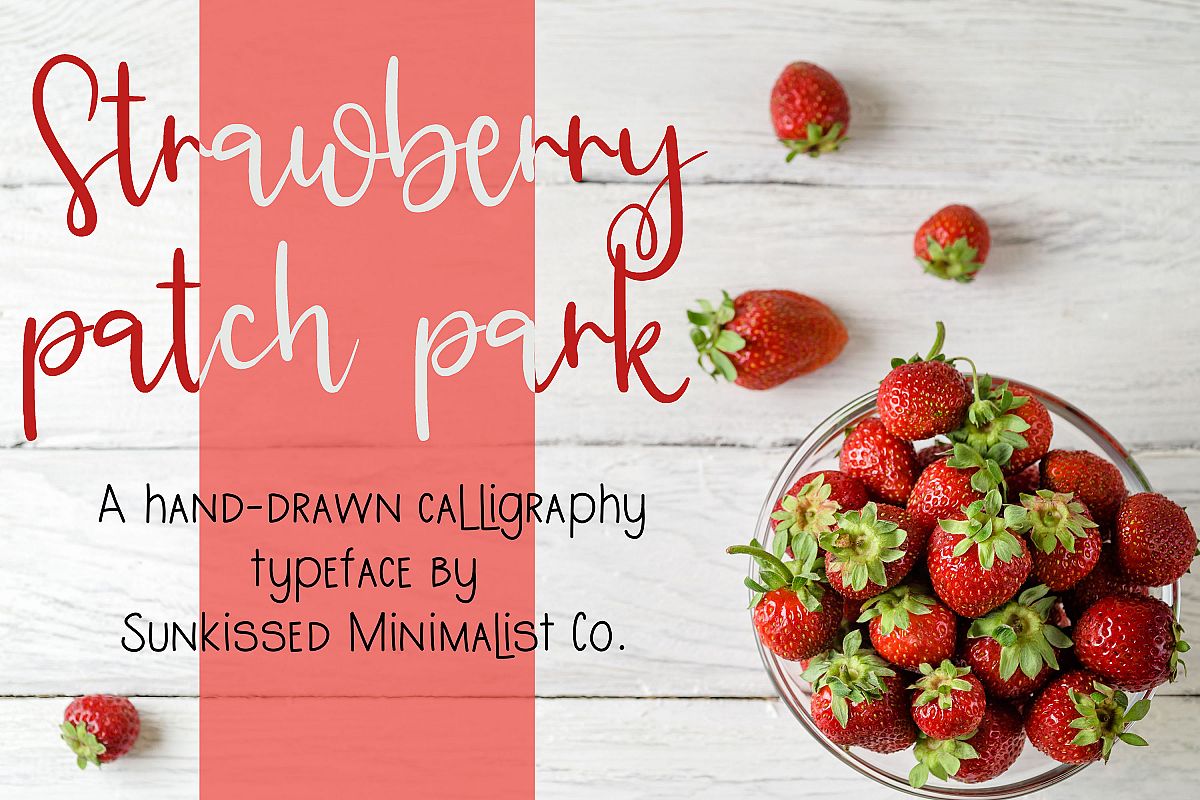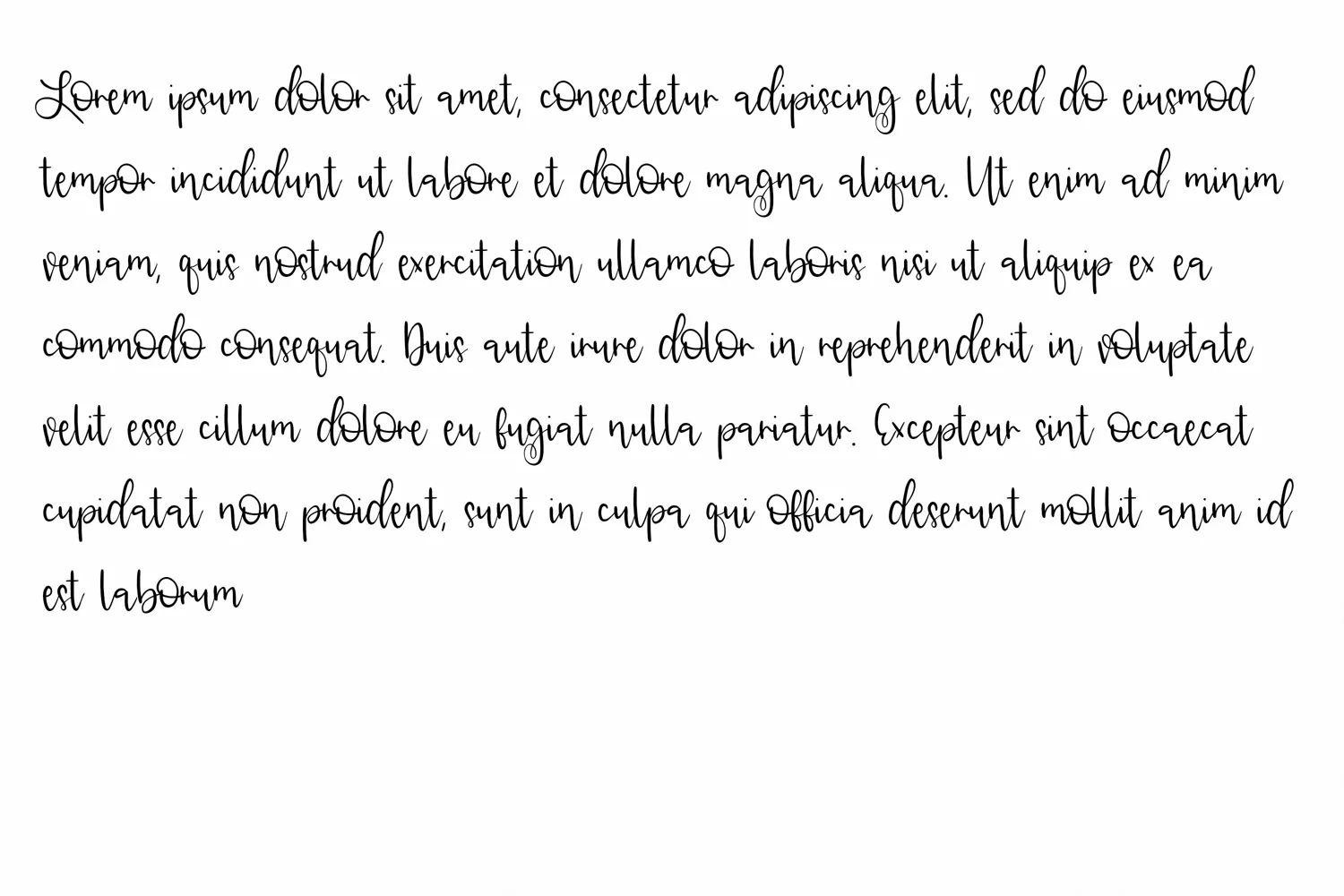
Strawberry Patch Park
Strawberry Patch Park is my favorite calligraphy font style! I use this style for everything because it's classic but has a little rustic flavor. It has some beautiful quirks that give it a signature uniqueness.
This font is great for billboards, logos, quote designs, and more...